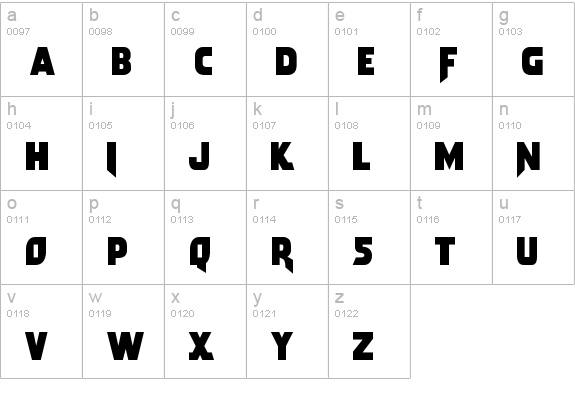
Arwing font is a sleek and modern typeface that exudes sophistication and elegance. With its clean lines and distinctive style, Arwing is perfect for adding a touch of class to any design project. This versatile font can be used for a variety of purposes, from branding and logos to invitations and social media graphics. Best of all, Arwing font is completely free to download at FontsMarket.com. This means you can easily access this stunning typeface without any cost, making it a valuable addition to your font collection. Don't miss out on the opportunity to enhance your designs with the timeless charm of Arwing font – download it today and elevate your creative projects to the next level.